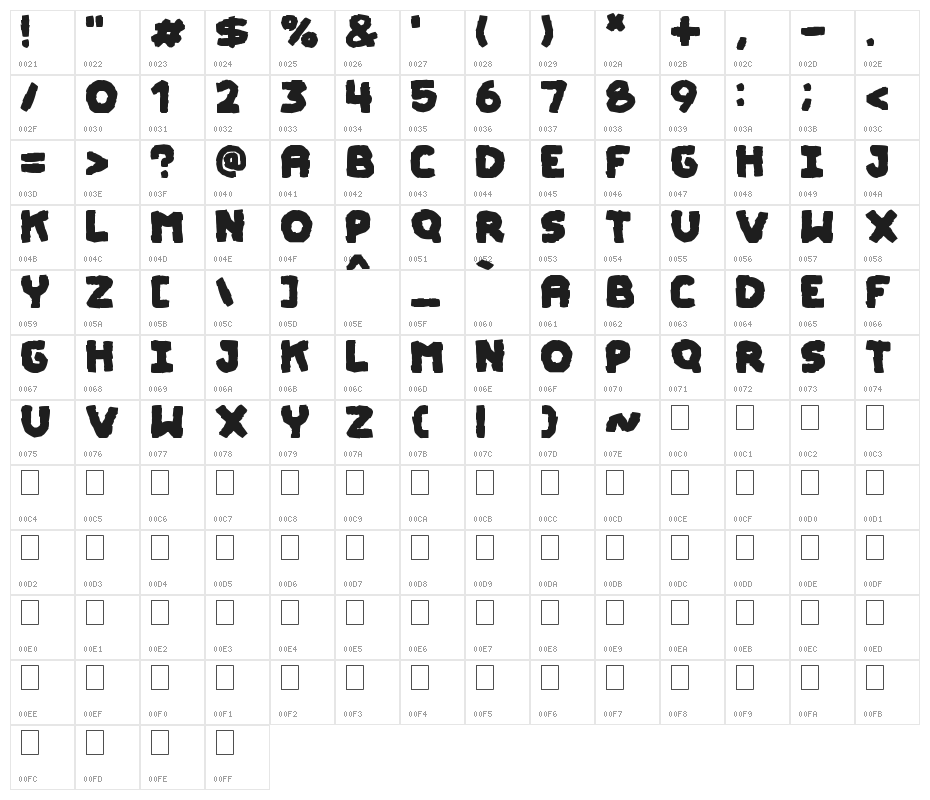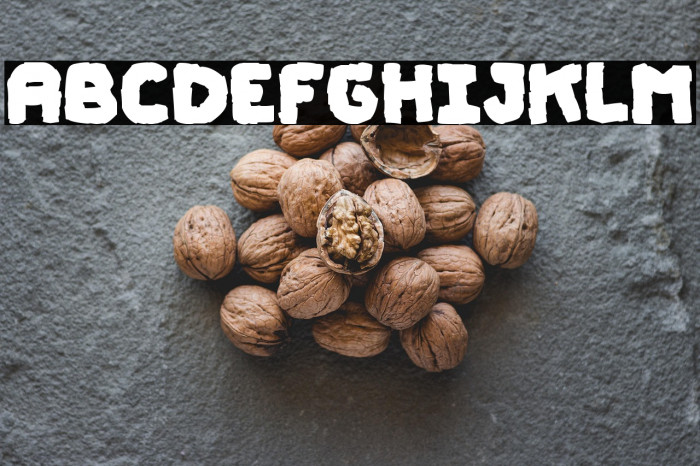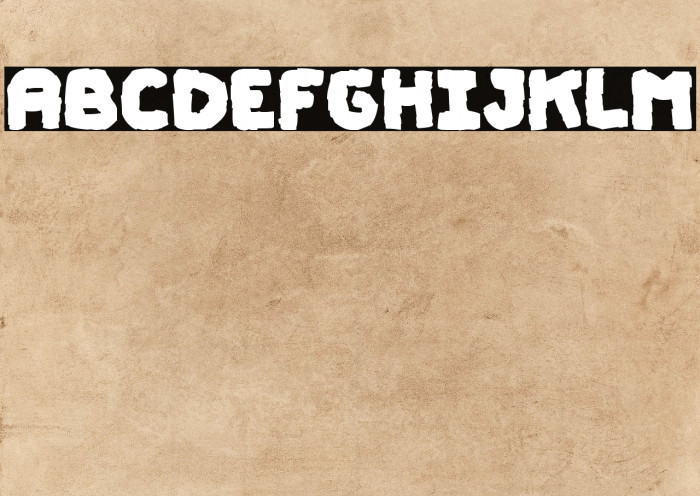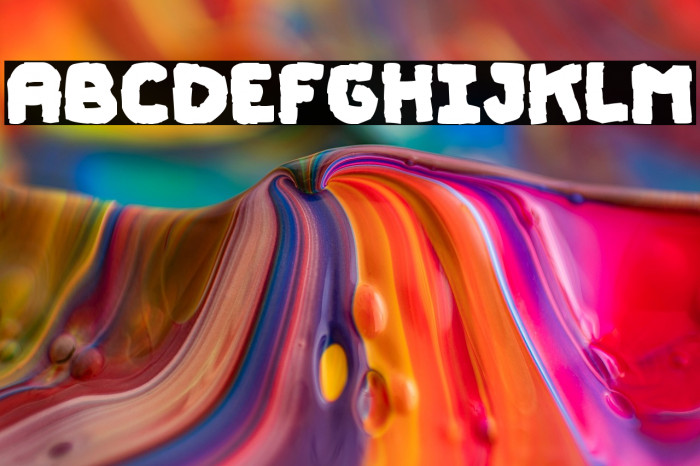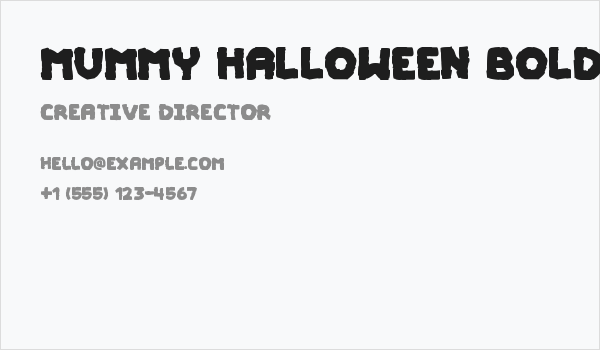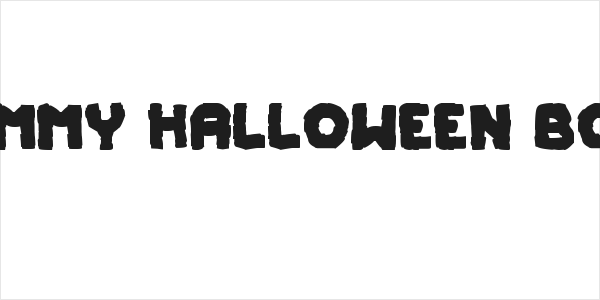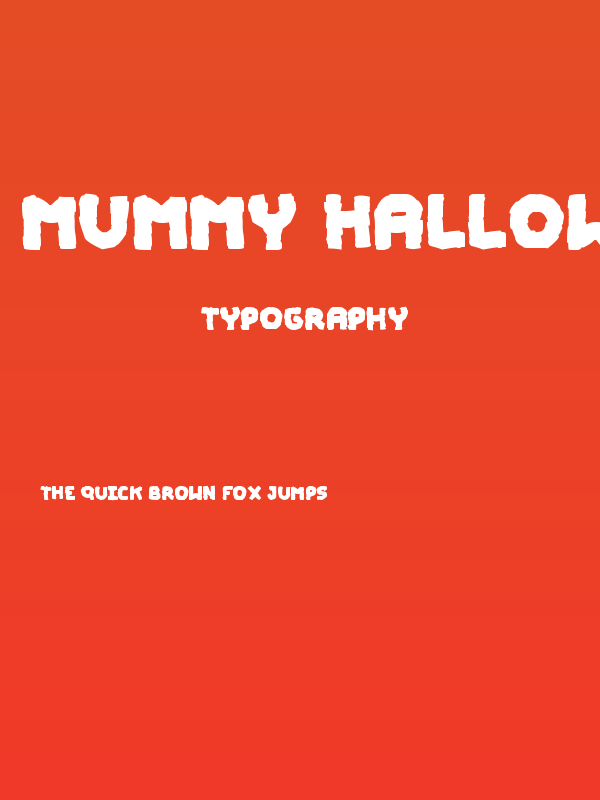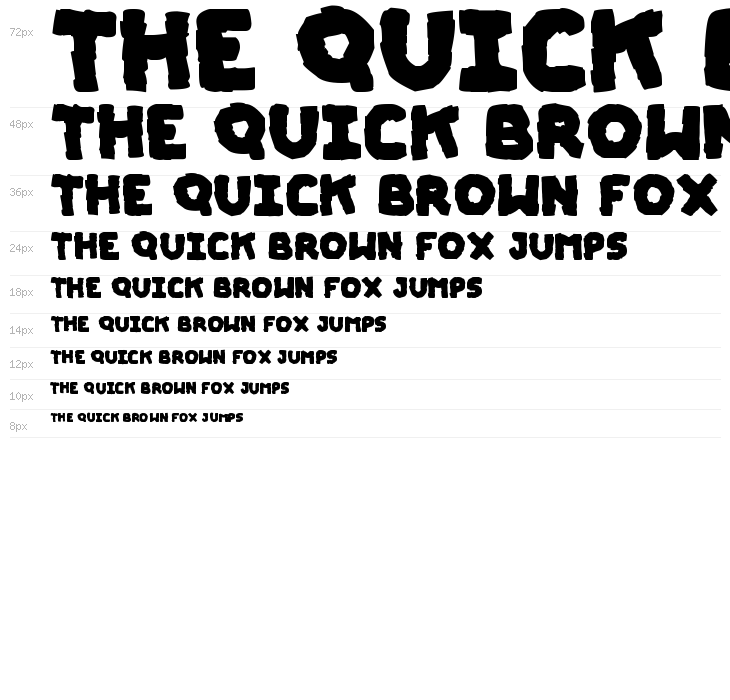
Mummy Halloween Bold Font
Mummy Halloween Bold Description
This font features a bold and playful design, reminiscent of Halloween themes with its irregular, jagged edges and thick strokes. The characters are bold and slightly uneven, giving a hand-drawn, spooky appearance. The uppercase and lowercase letters maintain a consistent style, with a rugged texture that adds to the eerie aesthetic. The numbers and special characters follow the same design principles, making them suitable for themed projects. The overall look is both fun and slightly chaotic, perfect for capturing attention in festive or themed designs.